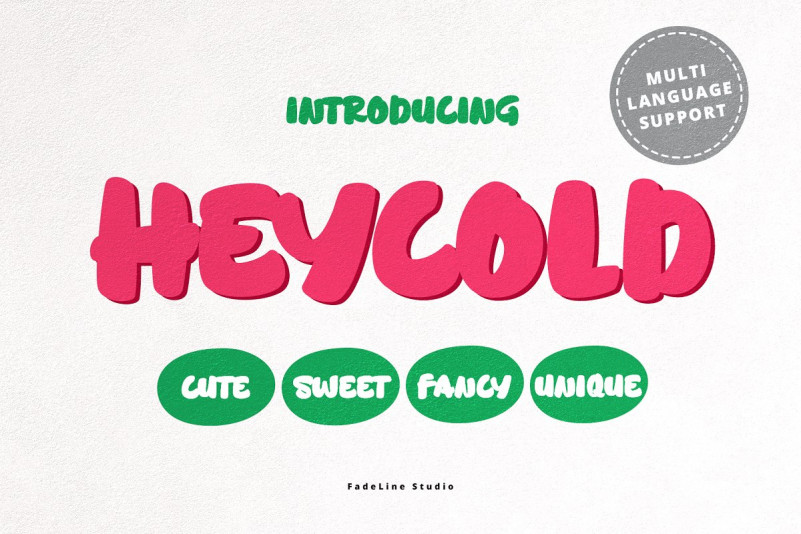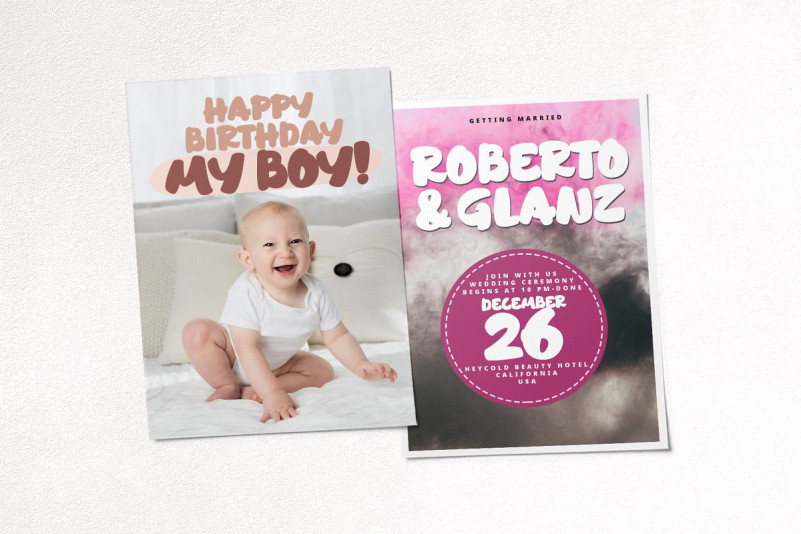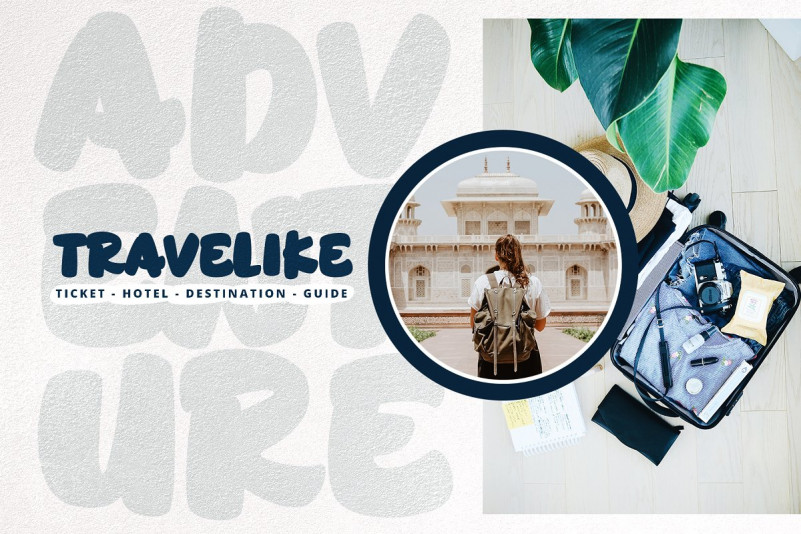
HEYCOLD Font
Introducing! HEYCOLD is a new beautiful and modern display font! This fun font has cute, cute, round, unique and fancy font characters. Made specifically with attention to appearance, aims to give happiness to everyone who uses it!